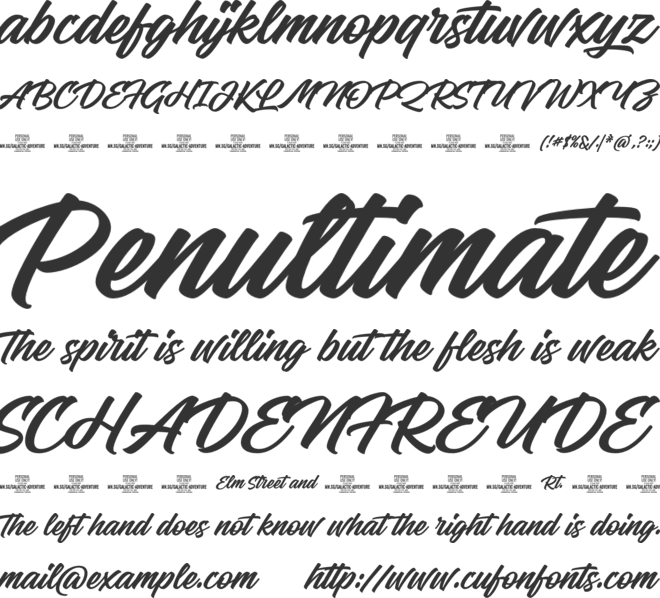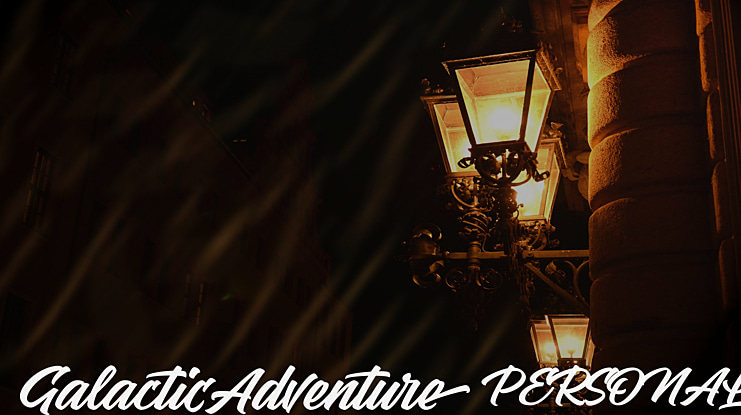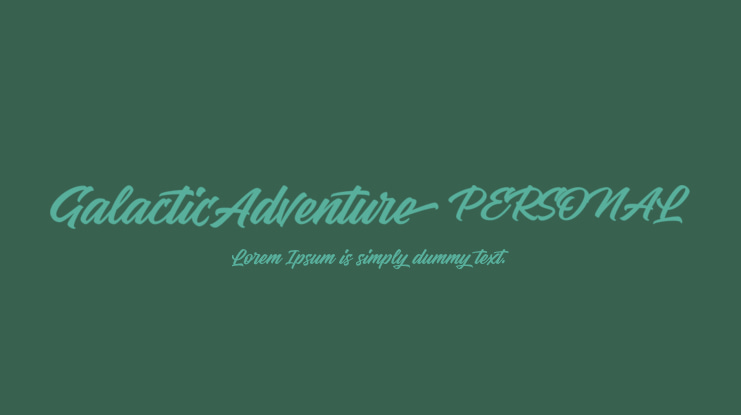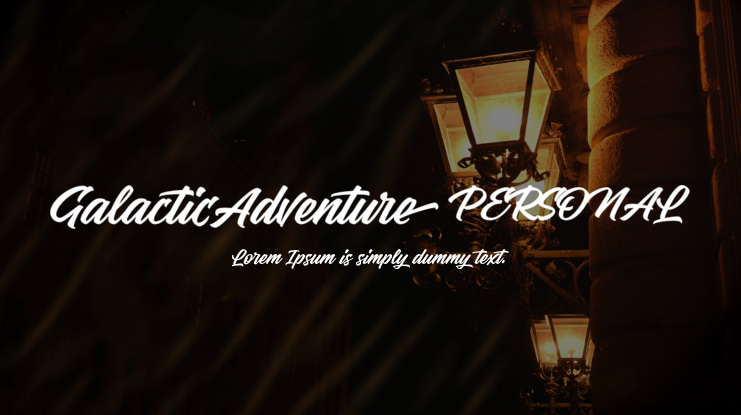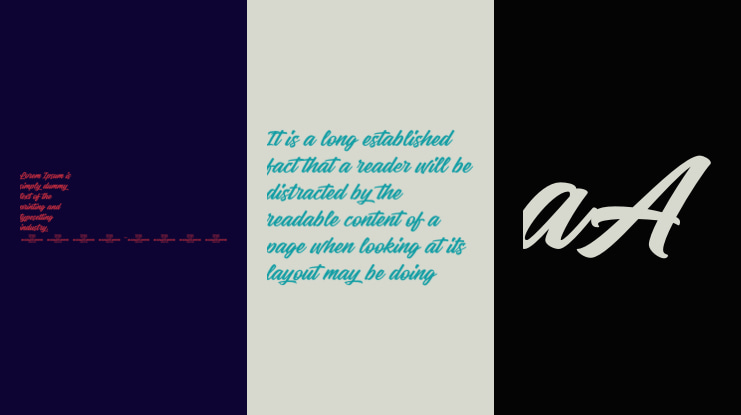
Galactic Adventure PERSONAL Font
Galactic Adventure is a calligraphic brush font with a retro twist, inspired by the expressive movement and boldness of vintage advertisements.
Use underscore _ to make a underline.
Example: Co_ol
Use multiple underscores for longer swashes.
Example: Super____human